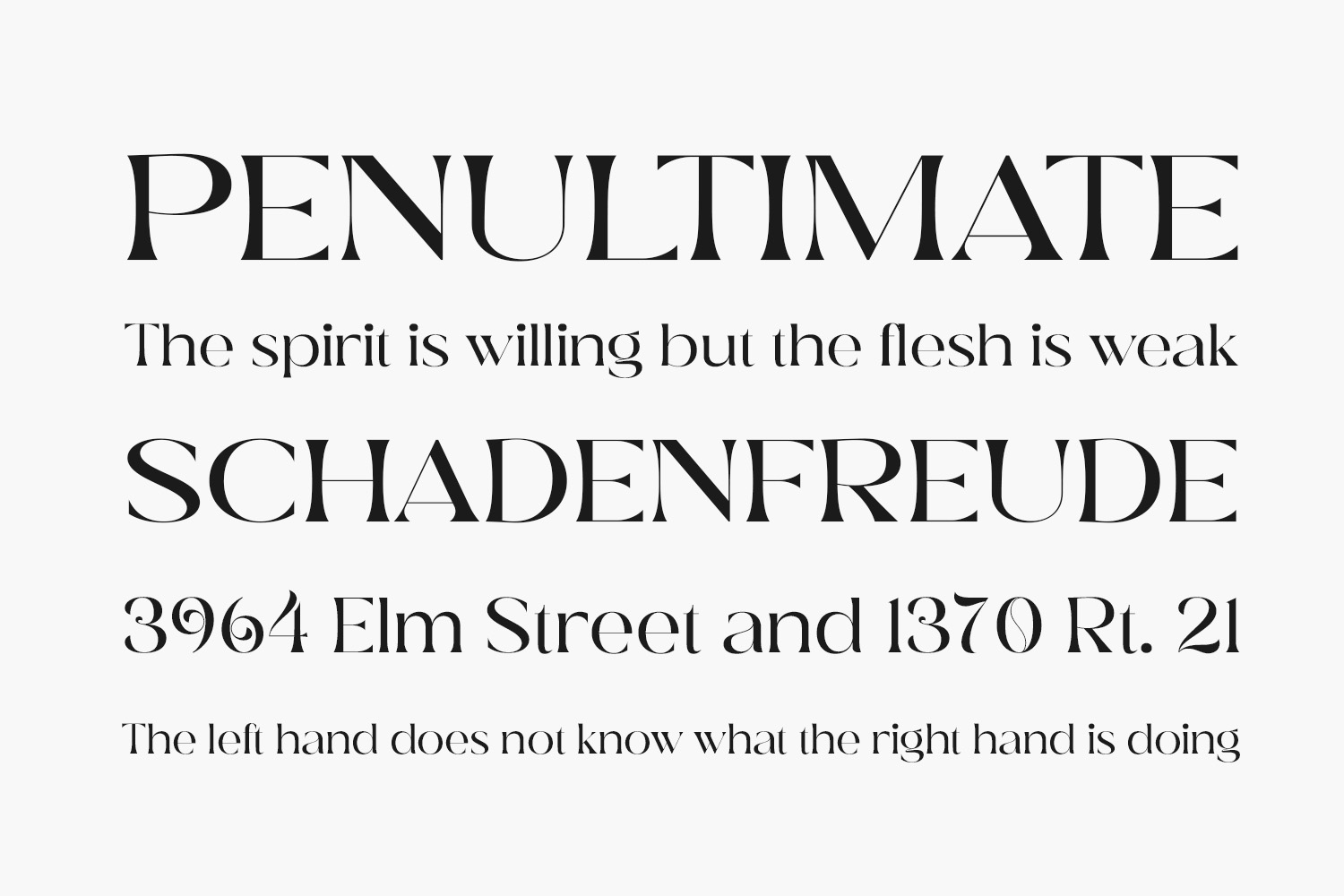
Deraga Free Font Family exudes elegance and sophistication, evoking a sense of timeless style and refinement. Its graceful serifs and smooth curves impart a sense of luxuriousness and grace, inviting the viewer to linger and savor the beauty of each and every letter. Whether used in a headline or as a body copy, Deraga Free Font adds a touch of class and emotion to any design, making it the perfect choice for any project seeking to make a bold and memorable statement.